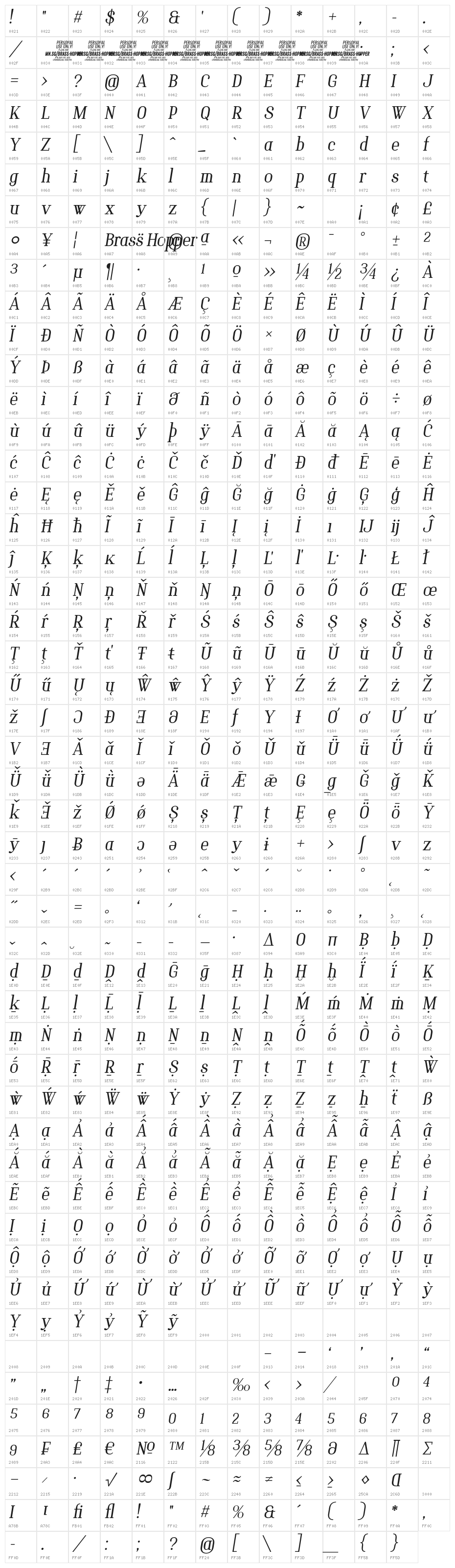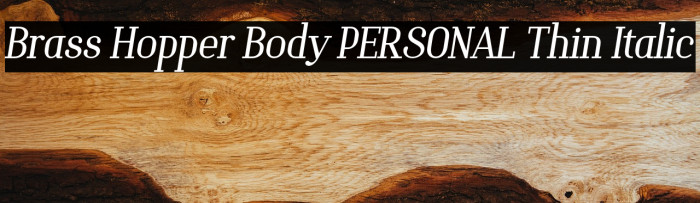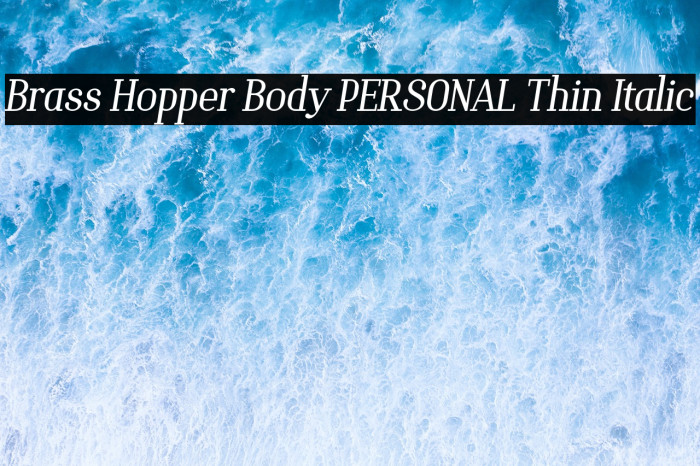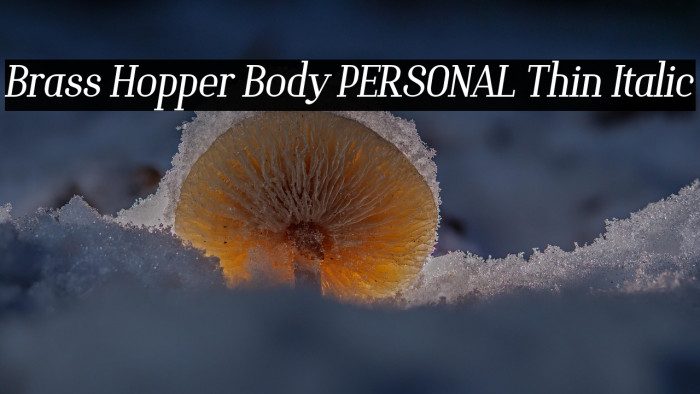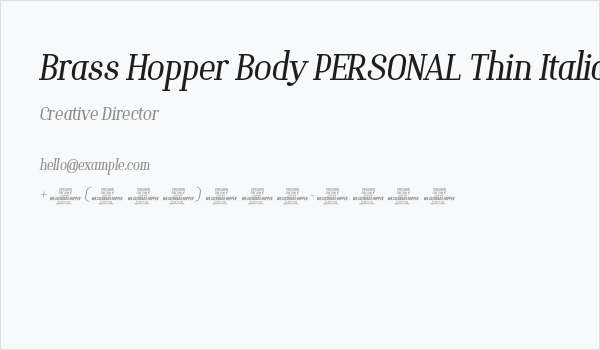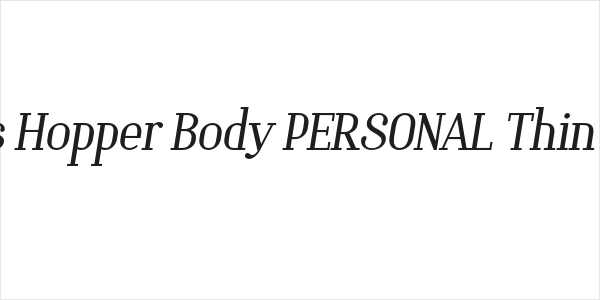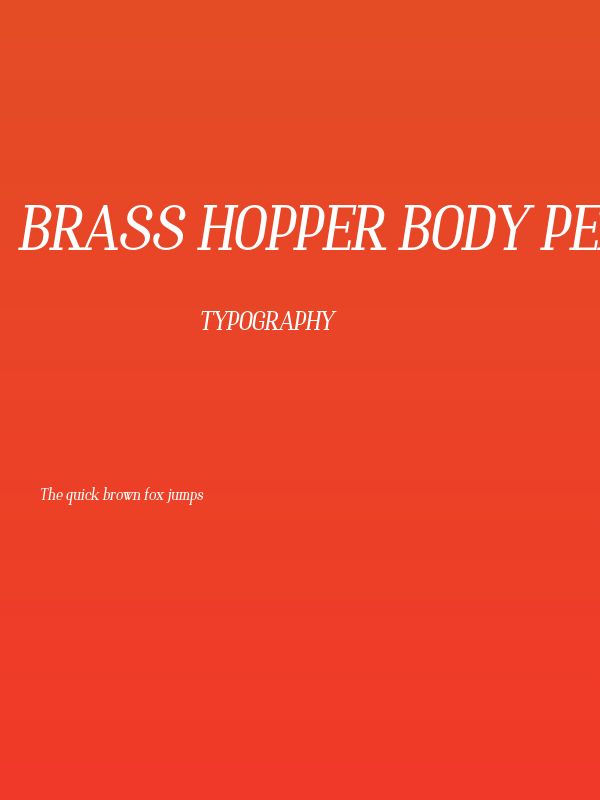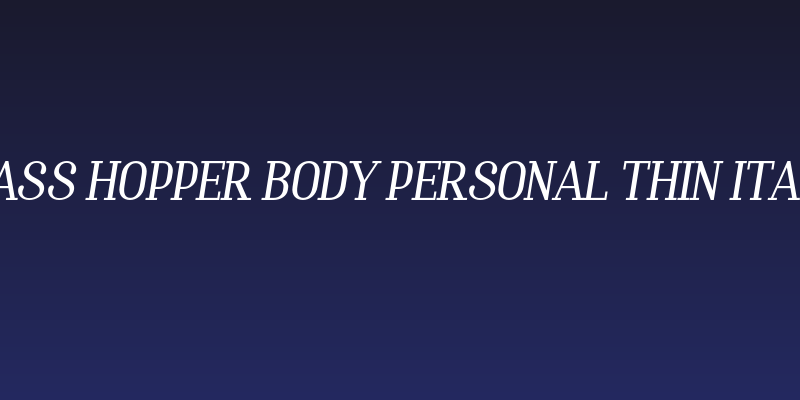
Brass Hopper Body PERSONAL Thin Italic Font
Brass Hopper Body PERSONAL Thin Italic Description
This elegant font features a refined and sophisticated design, characterized by its thin, italicized strokes. The letters exhibit a classic serif style, with delicate curves and sharp edges that convey a sense of grace and fluidity. The uppercase letters are tall and commanding, while the lowercase letters maintain a harmonious balance with their slightly rounded forms. The numerals and special characters are crafted with the same attention to detail, ensuring consistency throughout the typeface. Its thin weight and italic slant make it ideal for projects that require a touch of elegance and sophistication.
| Proposed Projects | Ideal for wedding invitations, luxury branding, editorial design, and elegant packaging. |